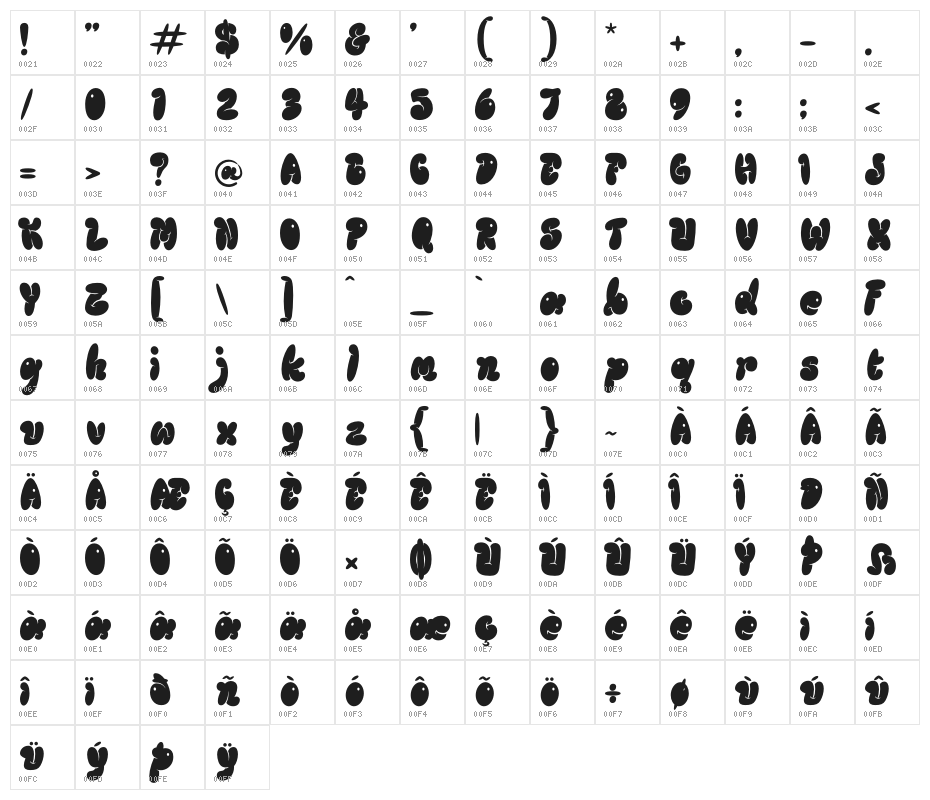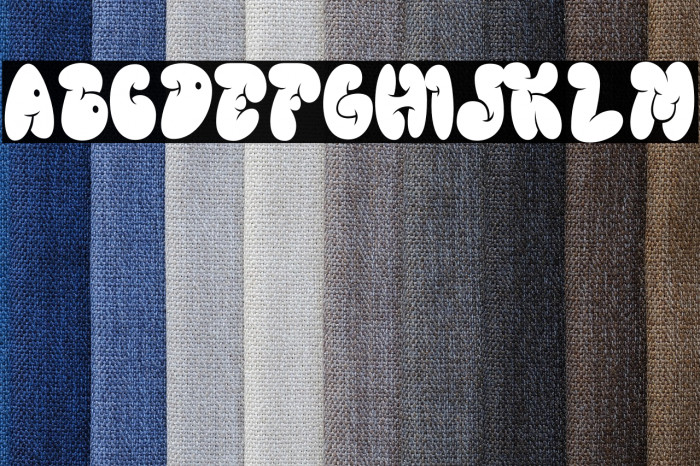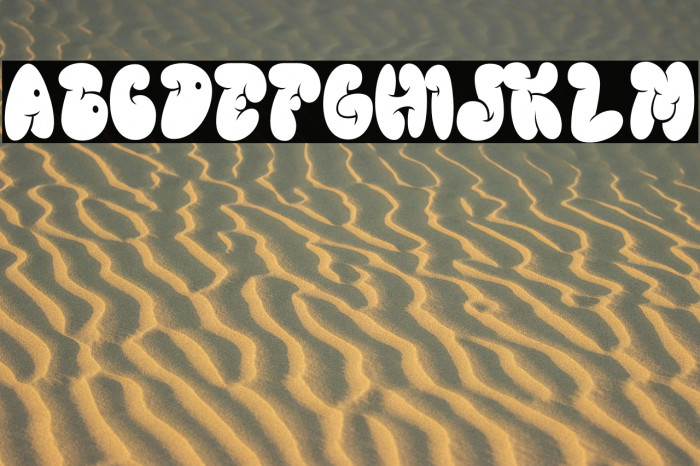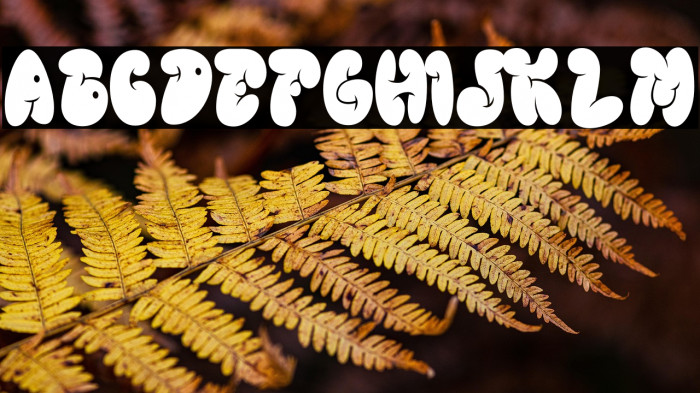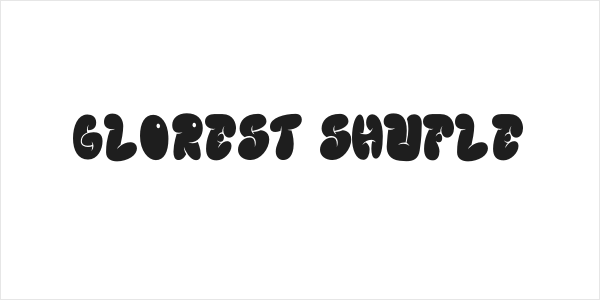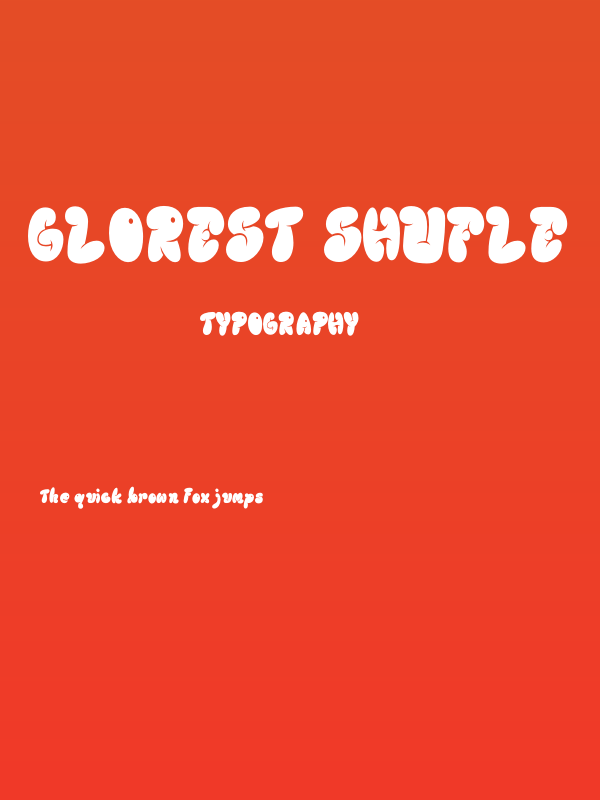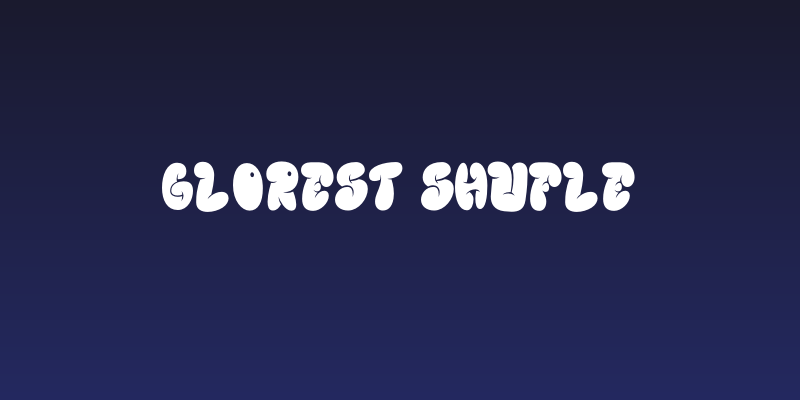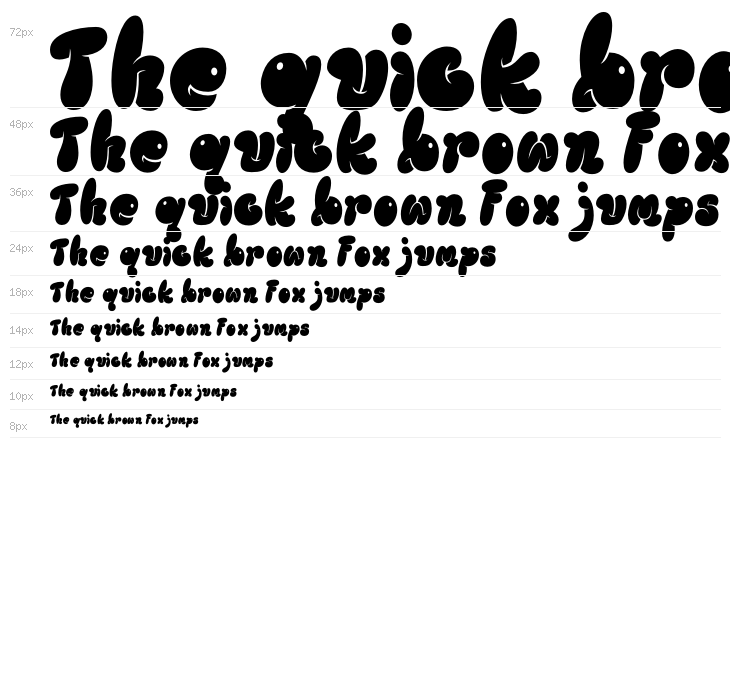
GLOREST SHUFLE Font
GLOREST SHUFLE Description
This playful and bold font features rounded, bubble-like characters that exude a sense of fun and creativity. The letters are thick and have a consistent weight, giving them a strong presence on the page. The characters have a whimsical, almost cartoonish quality, with exaggerated curves and a slightly irregular form that adds to their charm. The numbers and special characters follow the same style, ensuring a cohesive look across all text elements. This font is perfect for projects that require a lively and engaging typeface.